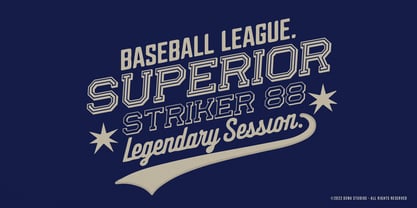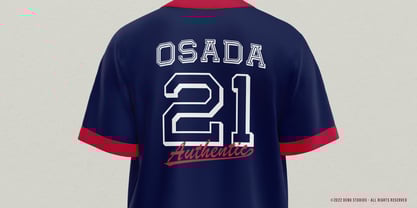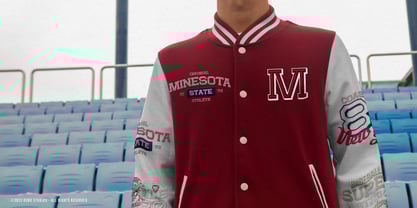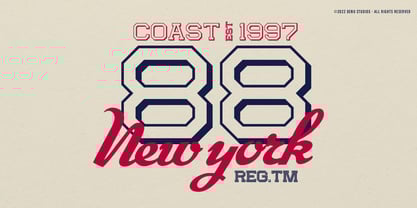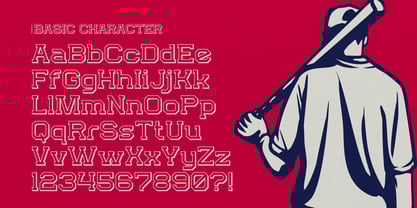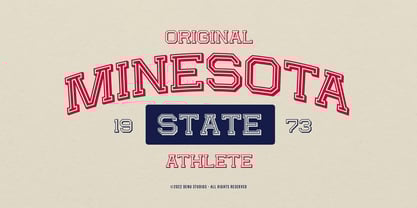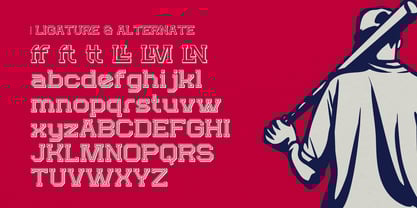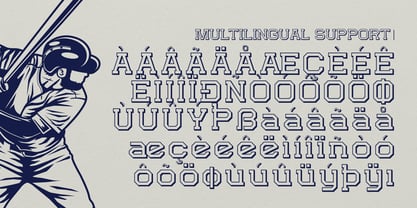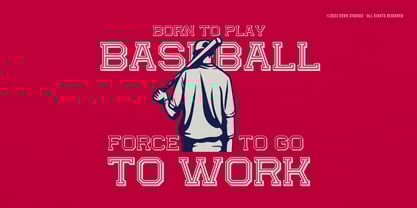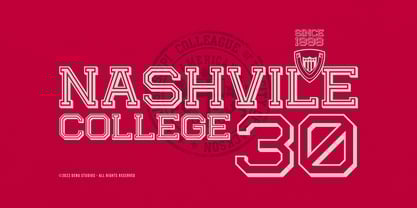
Absolute Glory Champ
by Denustudio
The Absolute Glory Champ Font Family was designed by Dede Nugraha and published by Denustudio. Absolute Glory Champ contains 2 styles and family package options.
Absolute Glory Champ | Sport Varsity, from Denustudios, suitable for any projects such as: logos, branding projects, homeware designs, product packaging, mugs, quotes, posters, shopping bags, t-shirts, book covers, name card, invitation cards, greeting cards, label, photography, watermark, special events, and all your other lovely projects that need Sport Varsity a taste.
• Regular and Italic
• Alternate and Ligature
• Fonts include multilingual support